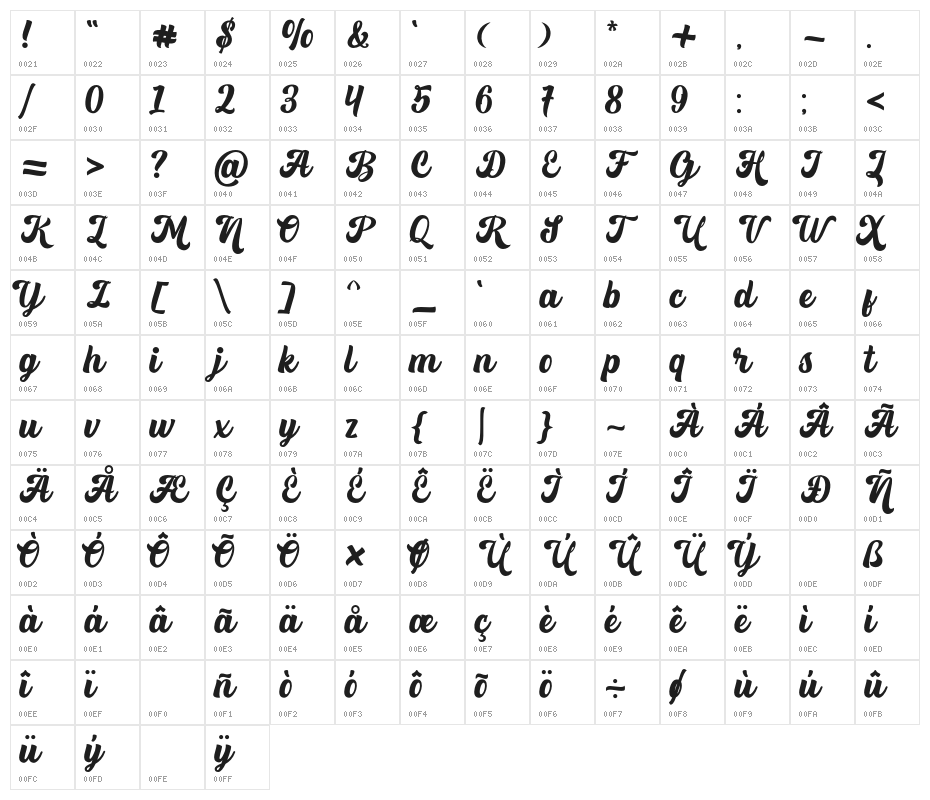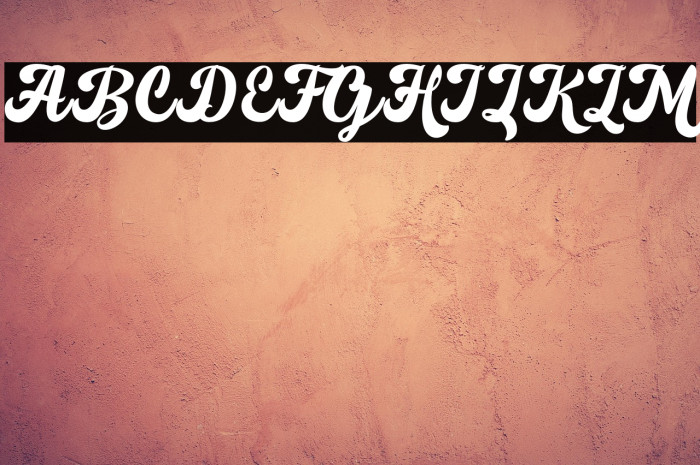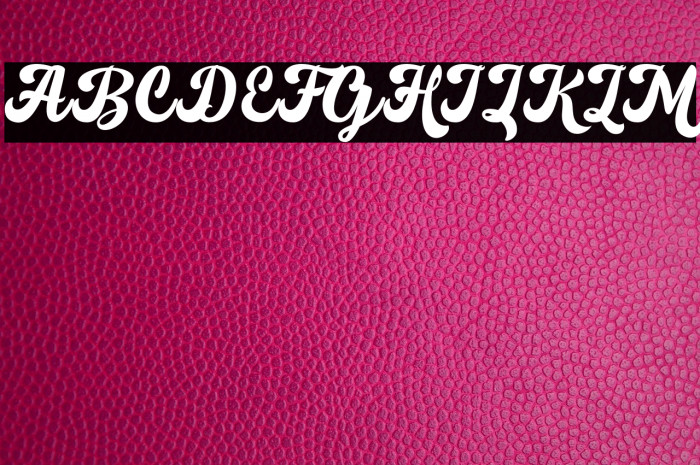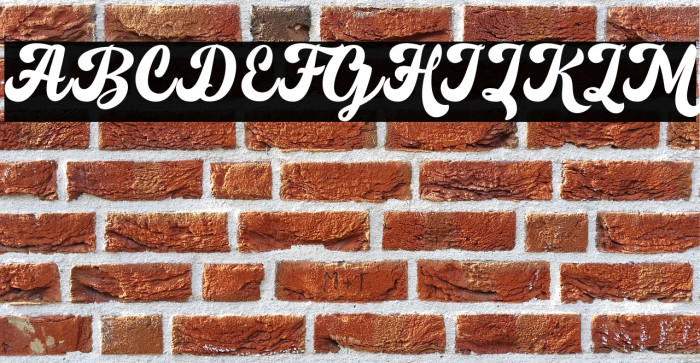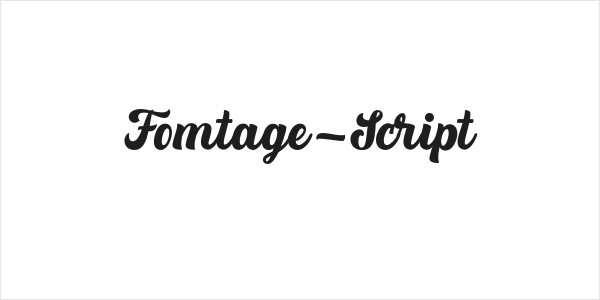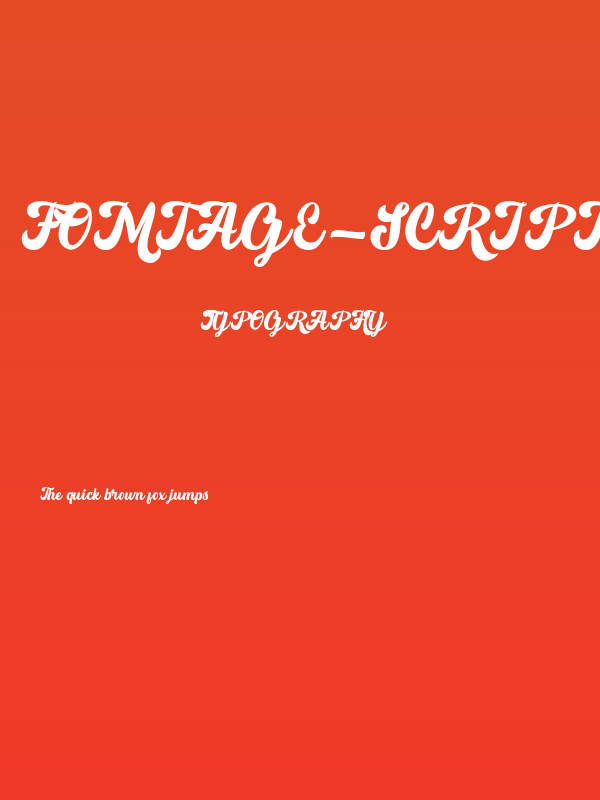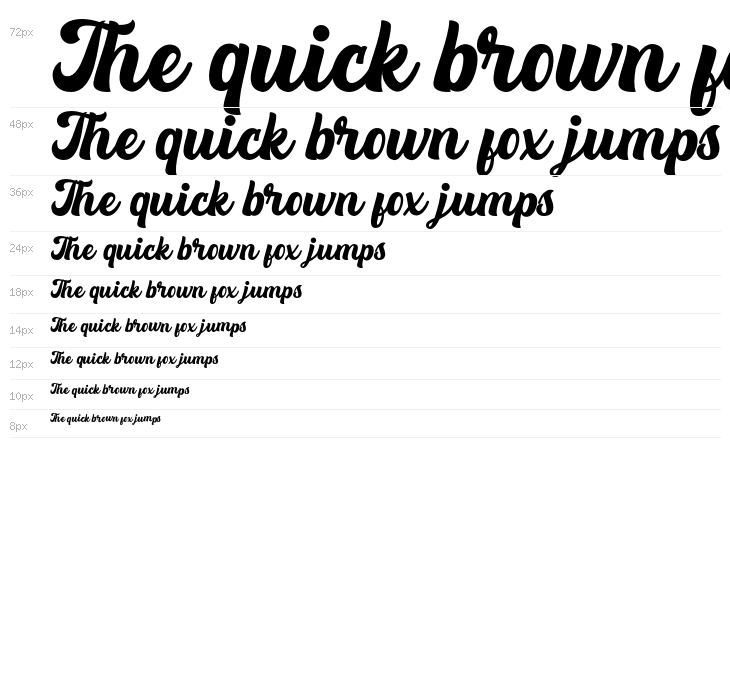
Fomtage-Script Font
Fomtage-Script Description
This font features a bold and flowing script style, characterized by its elegant and connected letterforms. The uppercase letters are ornate with sweeping curves, while the lowercase letters maintain a consistent flow, enhancing readability. The numerals and special characters are designed to match the overall aesthetic, providing a cohesive look. The font's thick strokes and smooth transitions give it a dynamic and lively appearance, making it suitable for creative and expressive design projects.
| Use Case | Headlines, Logos, Invitations |
| Proposed Projects | Ideal for wedding invitations, branding, logos, and decorative headlines. |